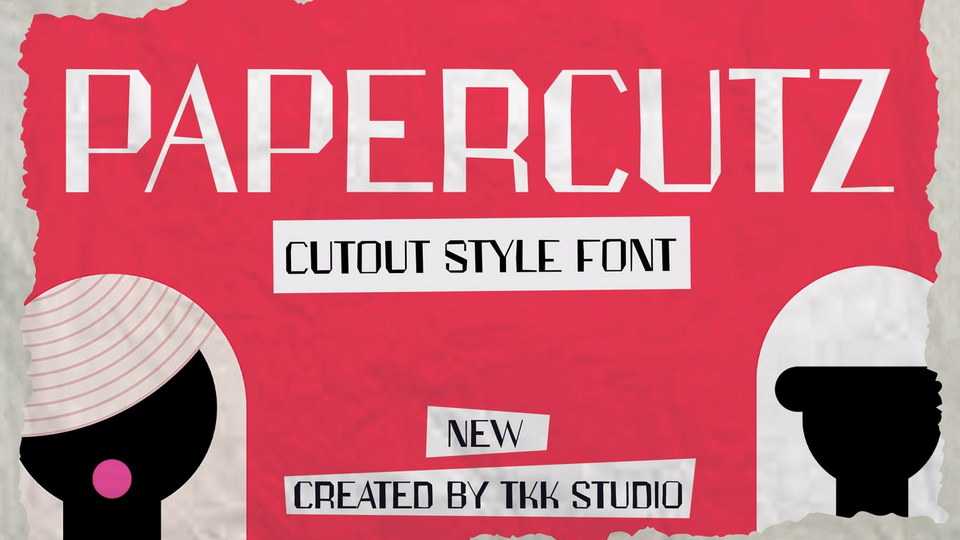
Download Papercutz font, a cutout vintage typeface. Papercutz has a classic Saul Bass style, that looks like a jagged and geometric style. Giving a mystery, seriousness, and mature feel to the word you wrote.